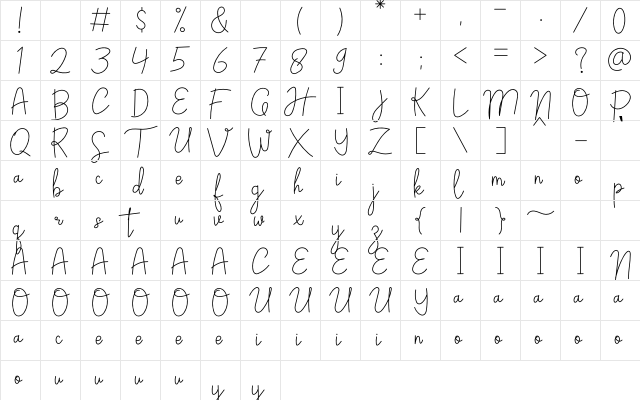
High Handmade Regular
Design Context for High Handmade Typeface
High Handmade brings a calligraphic fluidity to the page — its connecting strokes and expressive curves give it an unmistakably human quality.
Font Pairing: Combine High Handmade with a simple geometric sans for maximum contrast — the tension between flowing curves and clean structure is a classic typographic pairing.
Pro Tip: Use High Handmade for short runs of text — names, titles, or taglines. Extended body copy in script faces tires the eye quickly.